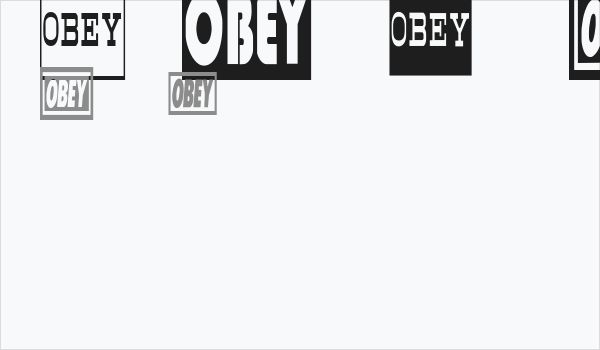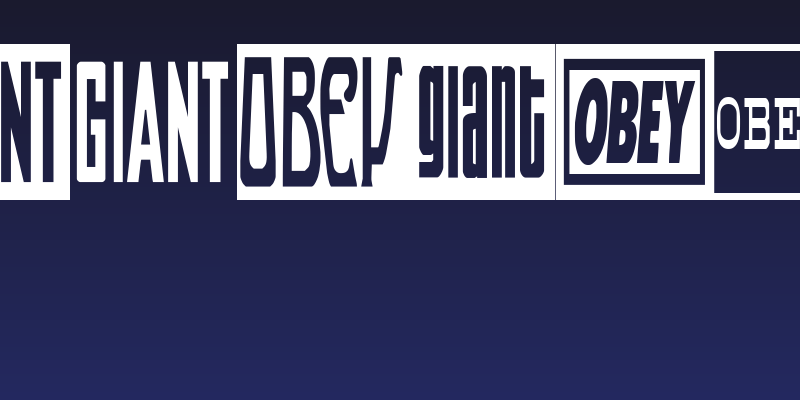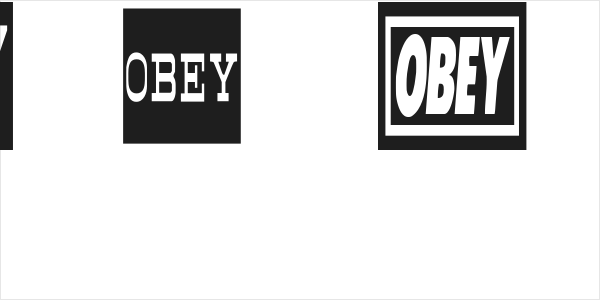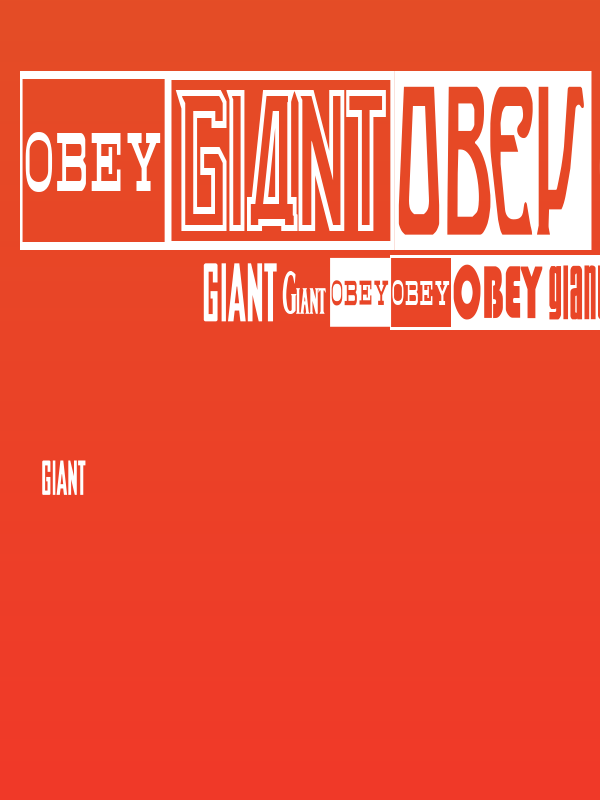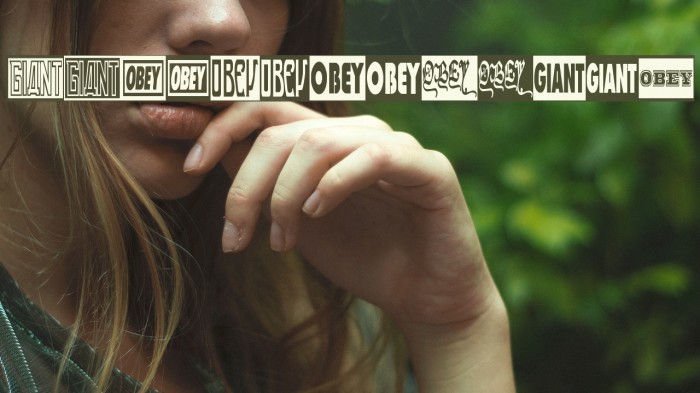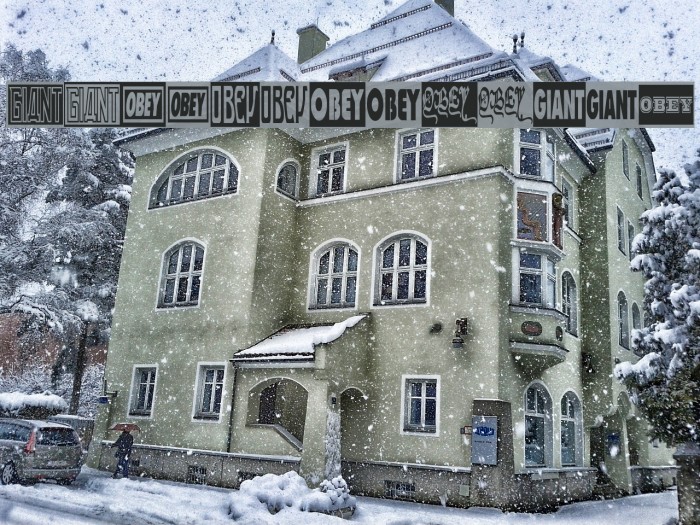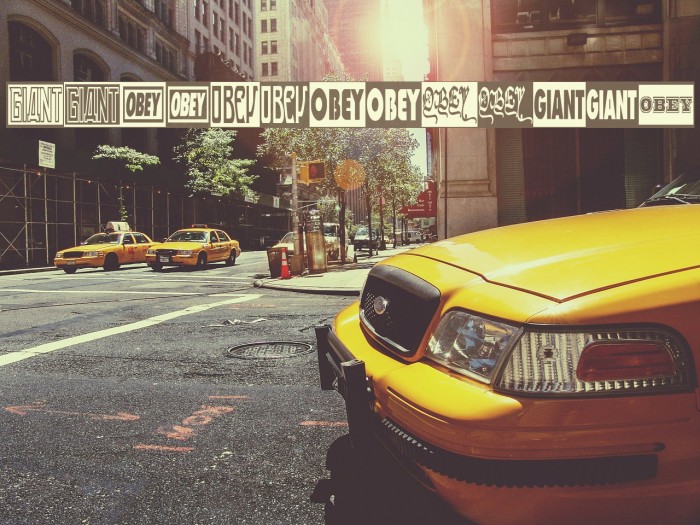
ObeyGiantPosterCondensedCaps Font
ObeyGiantPosterCondensedCaps Description
This font features a bold, condensed style with a strong presence, ideal for impactful designs. The uppercase letters are tightly spaced, creating a compact and cohesive look. The font's geometric shapes and clean lines give it a modern and assertive appearance, making it suitable for attention-grabbing headlines and posters. Its versatility is evident in its ability to convey authority and strength, while maintaining readability. The font's design is reminiscent of urban and street art influences, adding a layer of cultural depth to its aesthetic. The consistent stroke weight across characters ensures uniformity, while the condensed nature allows for efficient use of space in design layouts.
| Use Case | Headlines, Posters, Branding |
| Proposed Projects | Ideal for posters, headlines, branding, and urban-themed designs. |